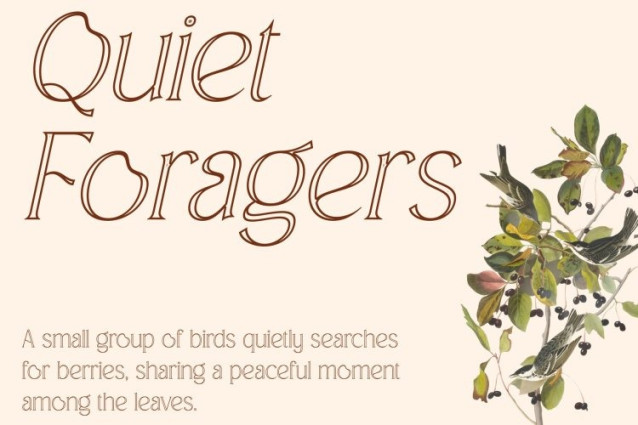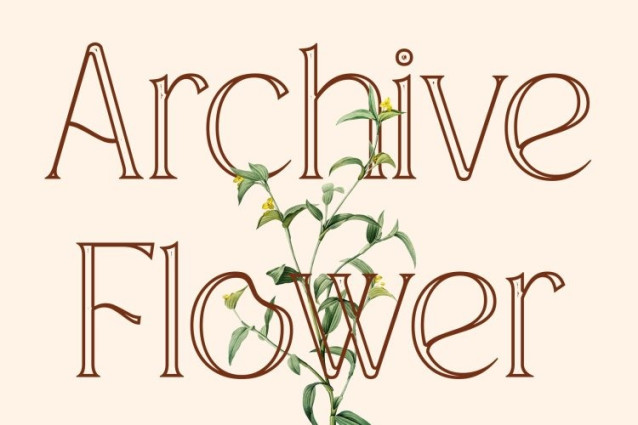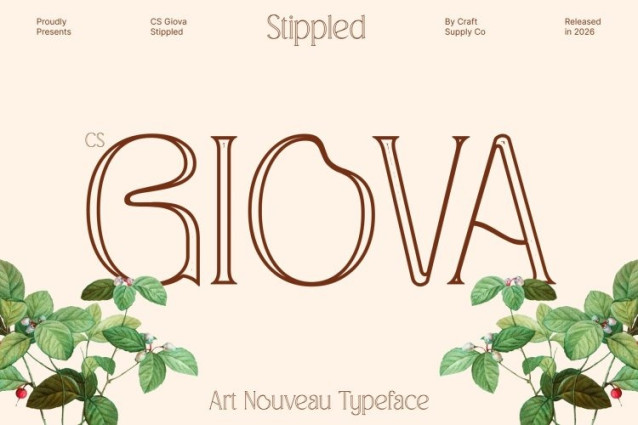
CS Giova Stippled Font
CS Giova Stippled Font is a modern Art Nouveau display font defined by smooth organic lines and graceful movement. Inspired by the flowing aesthetics of classic Art Nouveau and reinterpreted through a contemporary lens, it delivers an elegant and fresh visual presence. The addition of a stippled texture introduces a subtle dotted surface that enriches the letterforms with depth and handcrafted character, enhancing its artistic appeal.
Organic Letterforms with Elegant Detail
The beauty of this font lies in its fluid, organic shapes and harmonious transitions. Each character is designed with smooth curves that evoke natural balance and rhythm, giving the font a refined yet expressive personality. The stippled detailing enhances these forms by adding gentle texture, creating a visually rich typeface that remains clear and elegant in display settings.
Artistic Expression with Modern Sensibility
Blending decorative elegance with contemporary refinement, this font offers a typographic style that feels both timeless and modern. Its Art Nouveau influence provides a sense of luxury and creativity, while the clean structure ensures versatility across modern design environments.
Perfect for Editorial, Fashion, and Luxury Branding
This is ideal for editorial layouts, luxury branding, fashion campaigns, packaging, invitations, and premium visual identities. Its elegant curves and textured detailing help elevate headlines and key visual elements with sophistication and artistic flair.